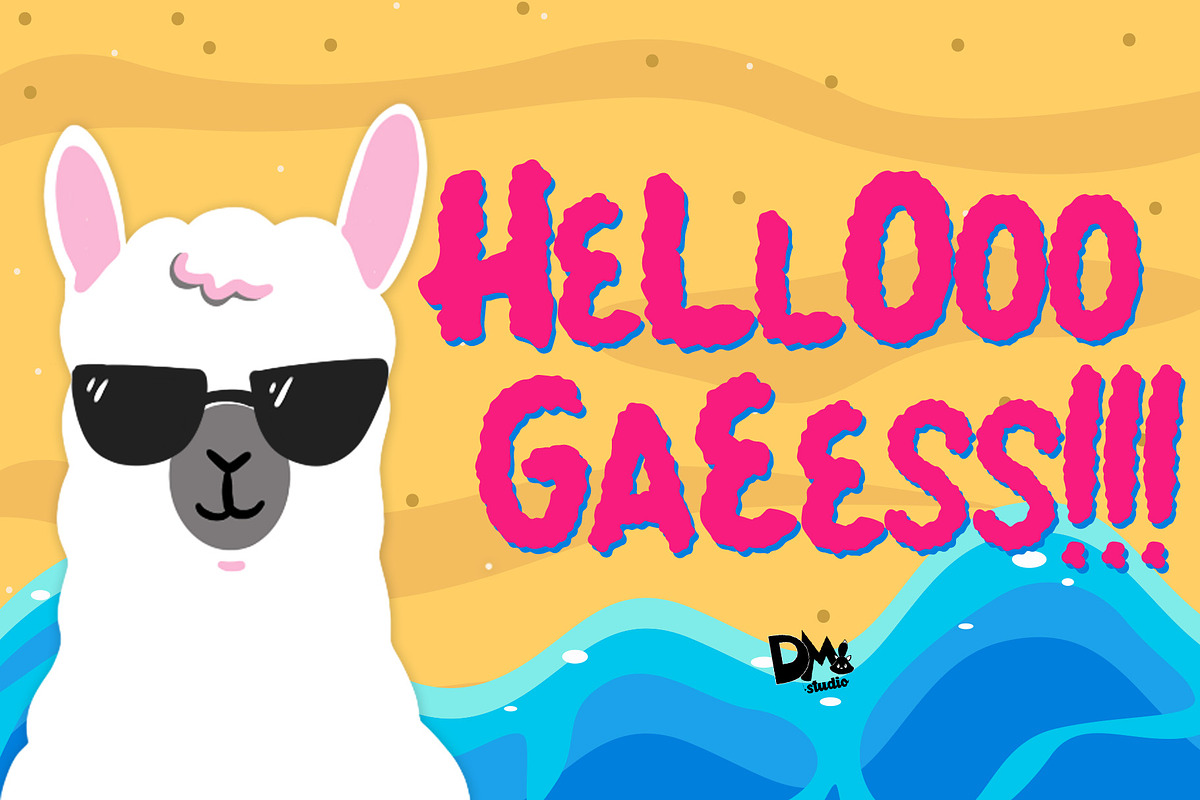
Summer Llama - Extra Llama Drawing
Welcoming Summer Llama ! It's a holiday summer theme typeface inspired with llama's fur, it's soft, curly and full of cuteness! Combine with the Llama drawing to make a gorgeous and unique crafts. They will be perfect for pillows, t-shirt, kids stuff, stickers, pin, scrapbooks, posters, promotions and much more !
SUMMER LLAMA Features :
- ALL in Caps character set,